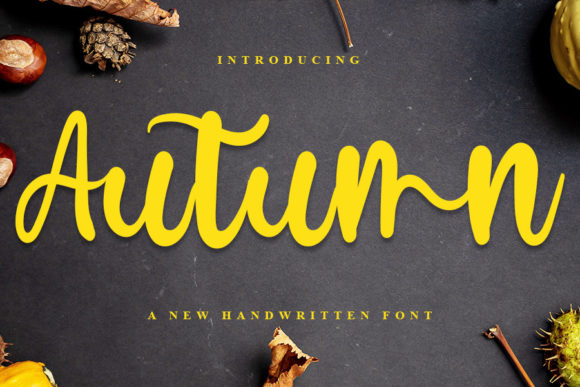
The Perfect Font for Fall: Discovering Autumn
As a designer, I’ve had my fair share of font struggles. I recall working on a project for a cozy coffee shop, determined to find the perfect font that would evoke the warmth and comfort of their brand. The client was adamant about a script font, but I was having a hard time finding one that felt both elegant and approachable. That’s when I stumbled upon Autumn, a chic and trendy script font that quickly became my go-to. In this article, I’ll share my experience with Autumn, its features, and how to make the most of it in your designs.
First Impressions: What I Love About Autumn
Autumn is more than just a font – it’s a statement piece. Here are a few things that immediately drew me in:
• ✨ Confidence and versatility: Autumn exudes a sense of sophistication and elegance, making it perfect for a wide range of projects, from branding to invitations.
• ✅ Stylish alternates and ligatures: The font comes with a variety of alternates and ligatures that allow for endless creative possibilities.
• 💫 Ease of use: Despite its intricate features, Autumn is surprisingly easy to use, even for those new to script fonts.
While Autumn is an excellent font, it’s not without its quirks:
• 🤔 Occasional kerning issues: As with many script fonts, you may encounter some kerning issues, especially when using certain character combinations.
• ⚠️ Limited suitability for body text: Due to its ornate nature, Autumn is best suited for headings and titles rather than body text.
The Story Behind Autumn
Autumn was designed with the modern creative in mind. Inspired by the changing leaves and cozy atmosphere of fall, the designer aimed to create a font that captures the essence of the season. Through a combination of traditional techniques and modern technology, Autumn was born – a font that is both stylish and versatile.
What makes Autumn a versatile font? Autumn’s versatility stems from its stylish alternates, ligatures, and elegant design, making it suitable for various projects, from branding to invitations.
Can I use Autumn for body text? While Autumn can be used for body text, it’s primarily designed for headings and titles due to its ornate nature.
Does Autumn support OpenType features? Yes, Autumn supports OpenType features, including stylistic alternates and ligatures, allowing for extensive customization.
Autumn is more than just a font – it’s a design companion that can elevate your projects with its elegance and versatility. Whether you’re a designer, crafter, or hobbyist, Autumn is sure to become a favorite in your font collection.